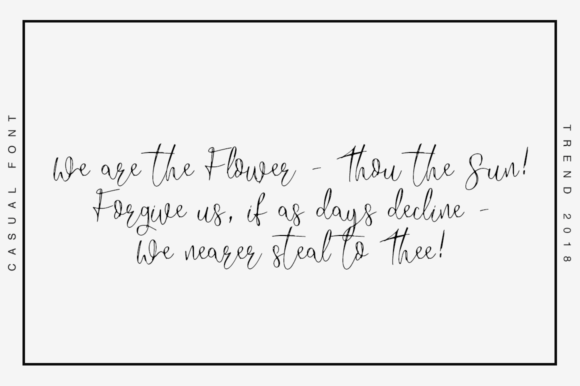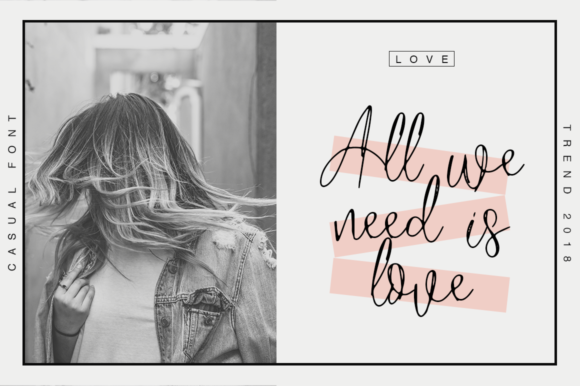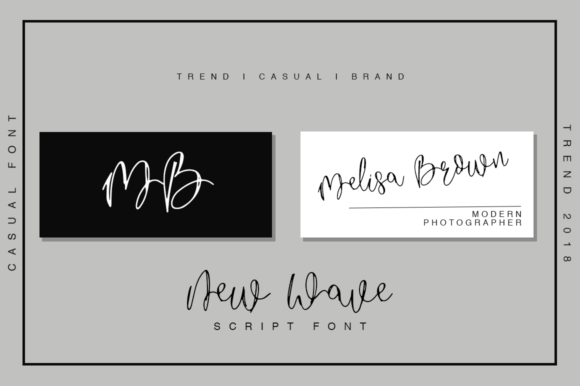
About New Wave Font
New Wave is a flowing handwritten font, described by an elegant touch, perfect for your favorite projects. Fall in love with its incredibly distinct and timeless style and use it to create spectacular designs!